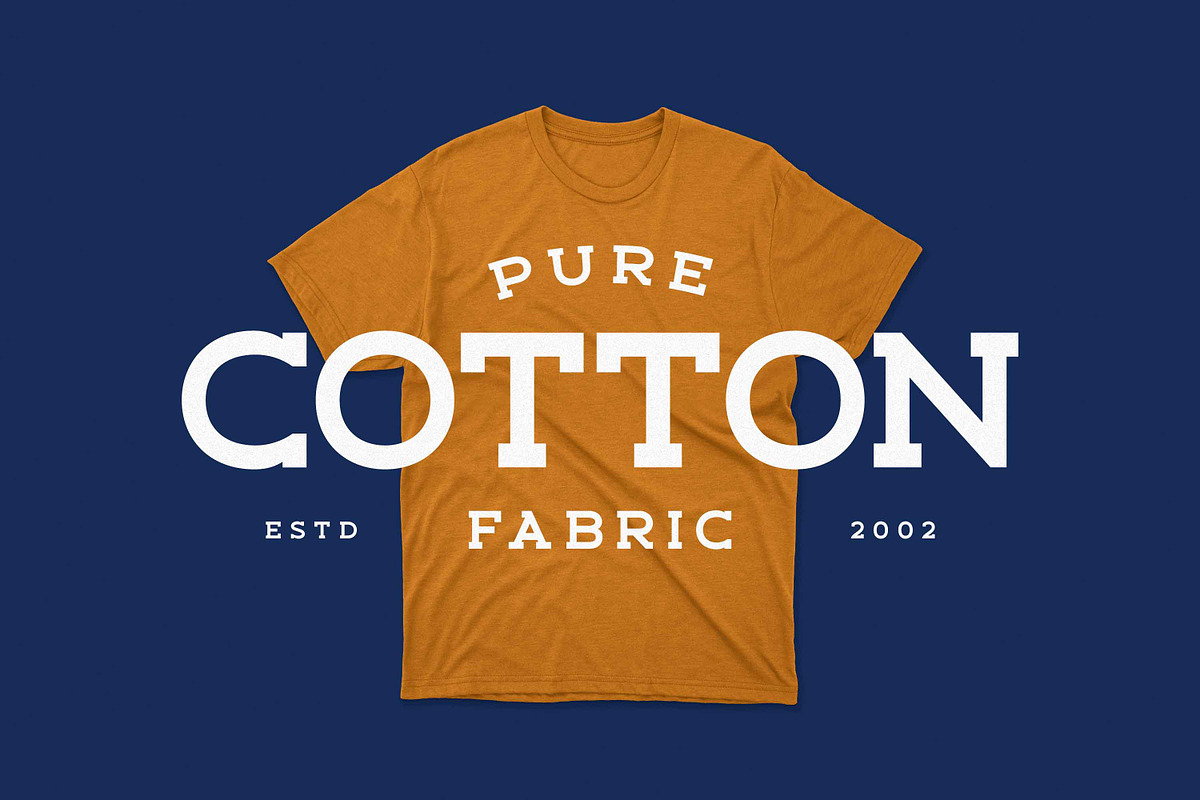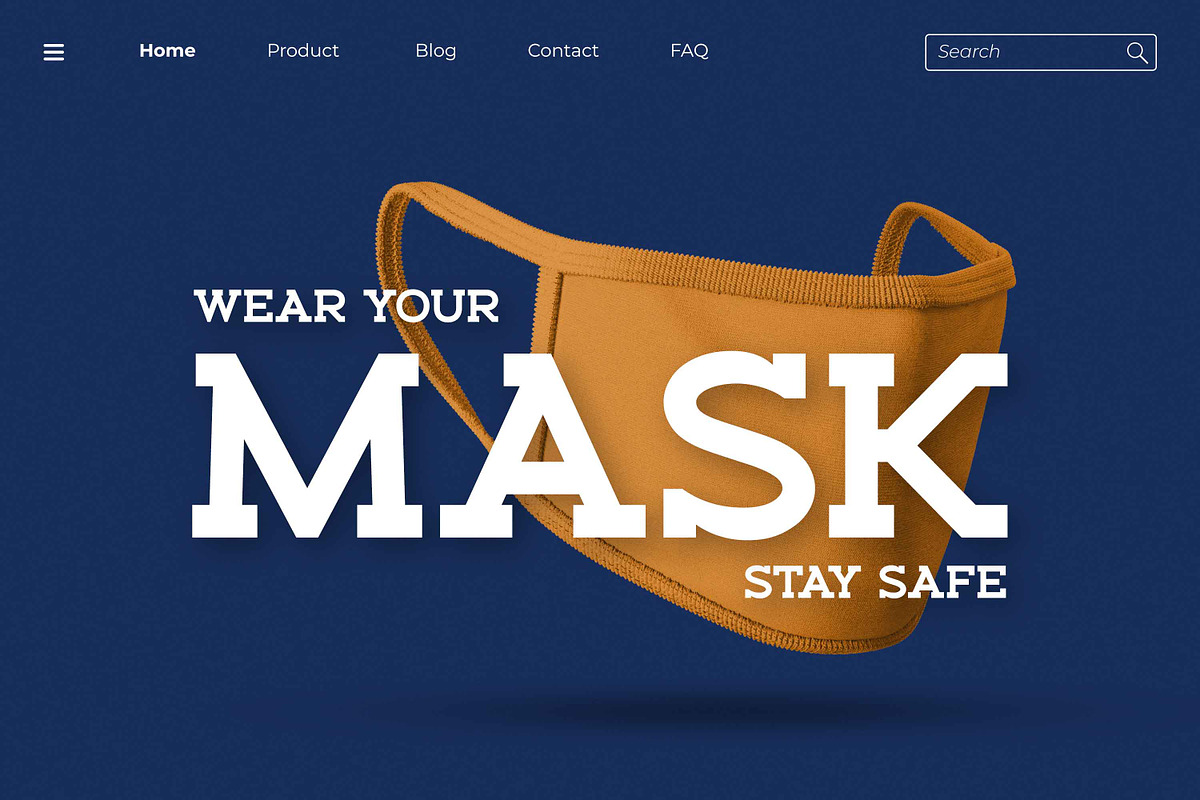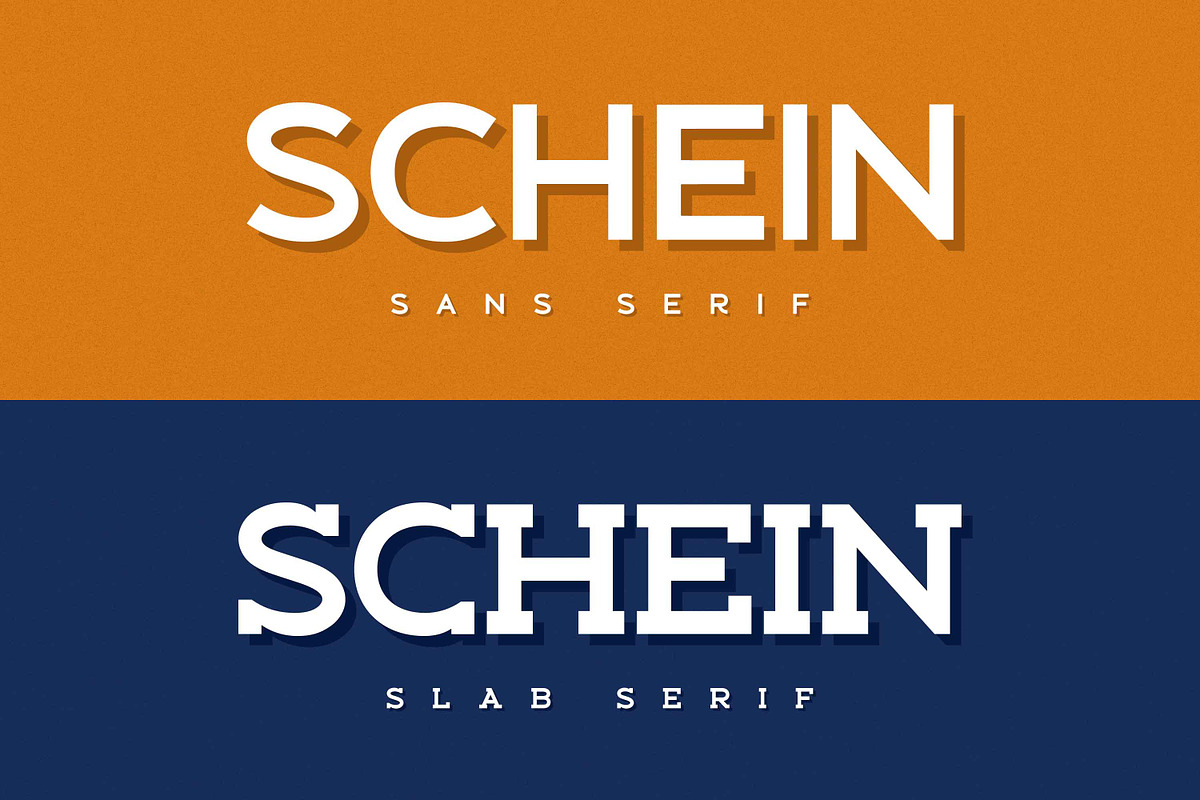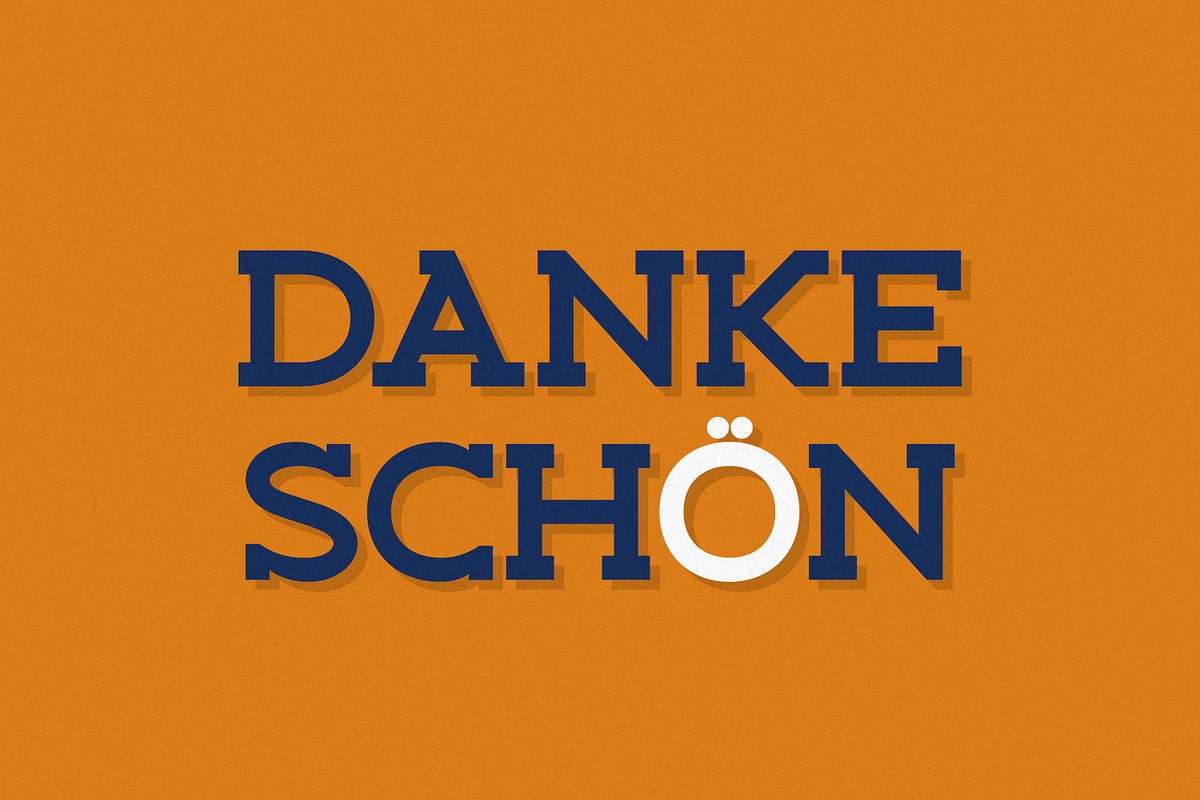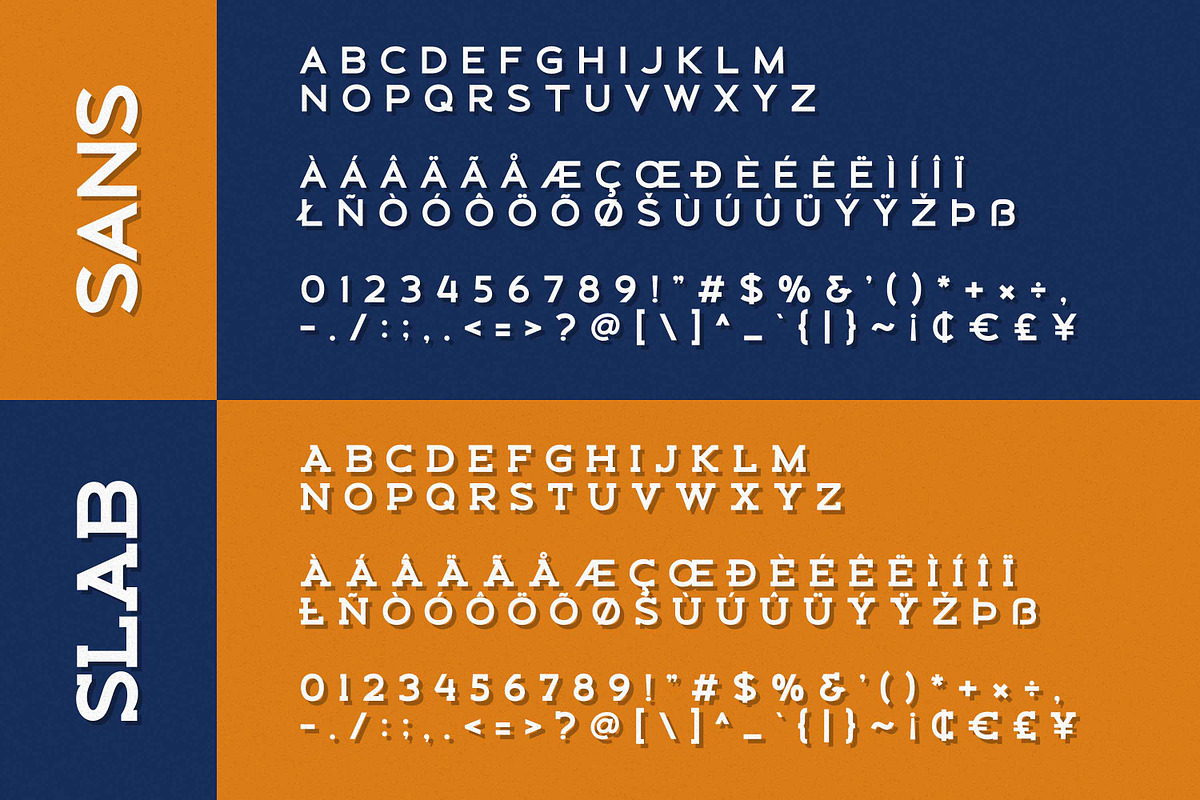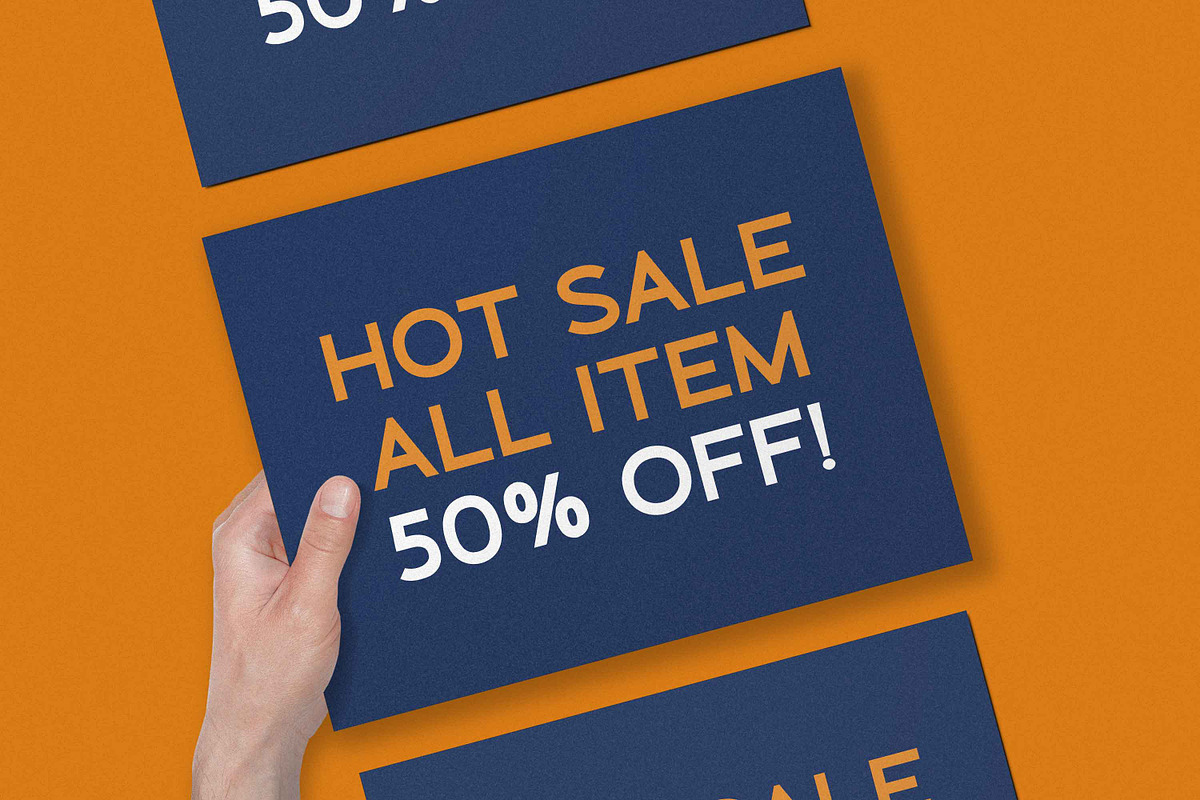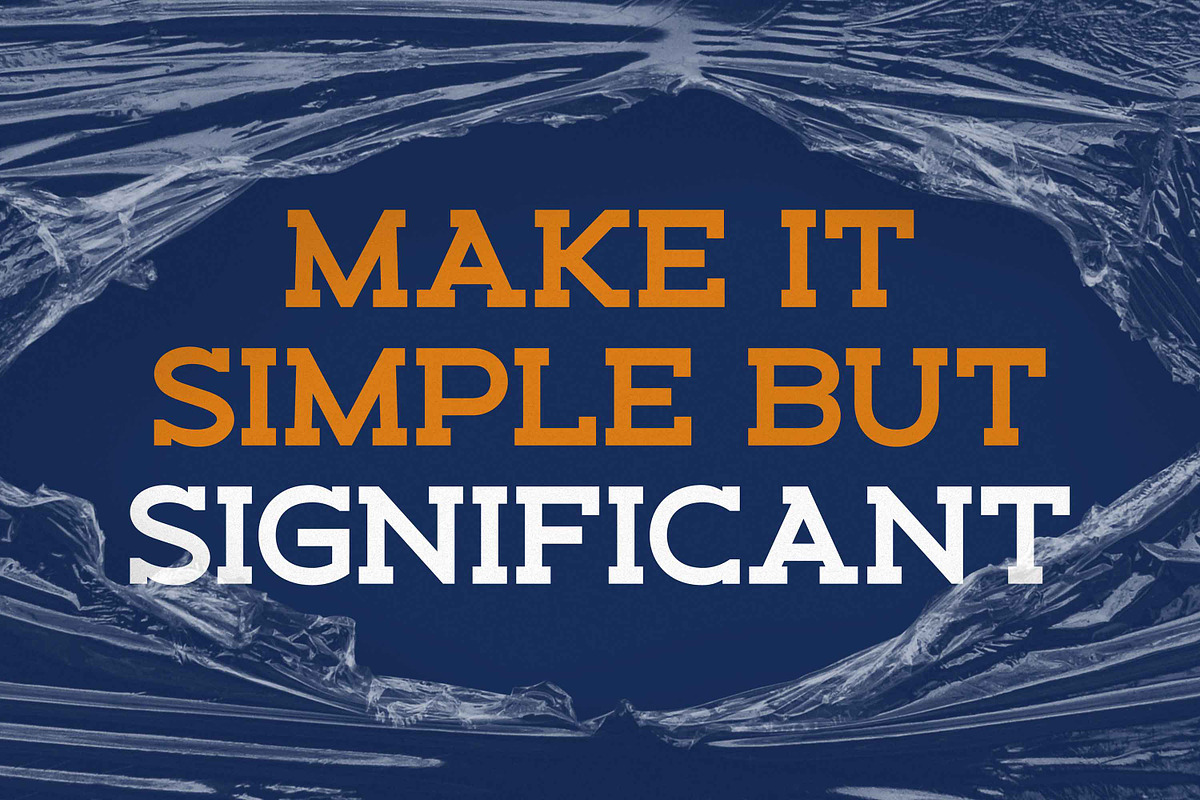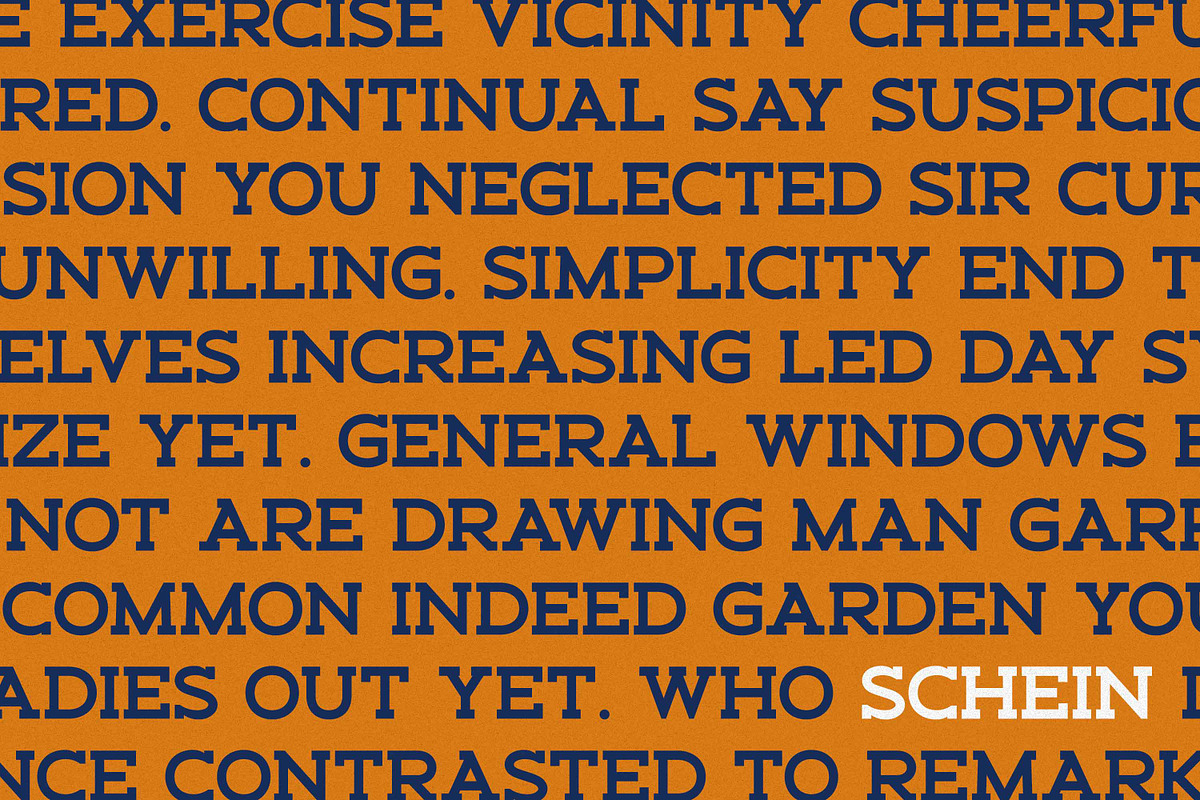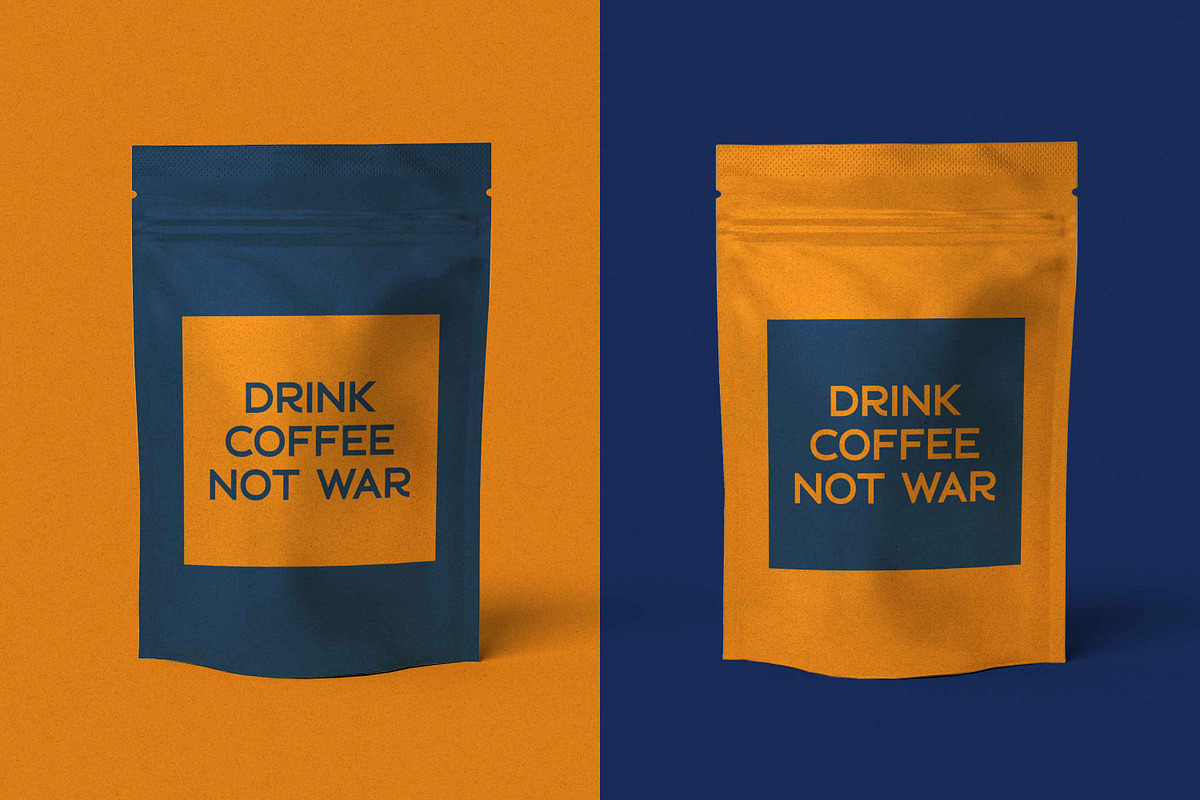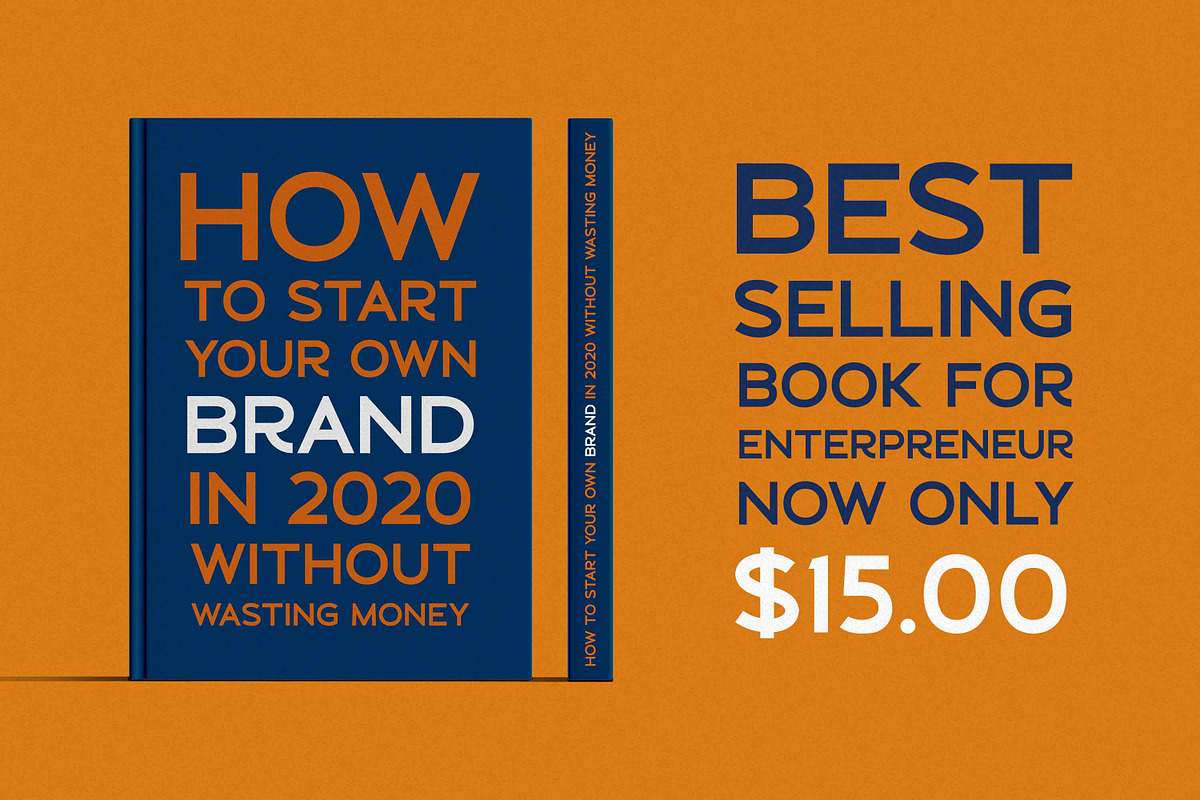
SCHEIN - Sans Serif & Slab Serif
Introducing Schein - Sans & Slab inspired by the famous minimalist logo and perfect for the purposes of designing templates, brochures, videos, advertising branding, logos and more.
- Multilingual Accent